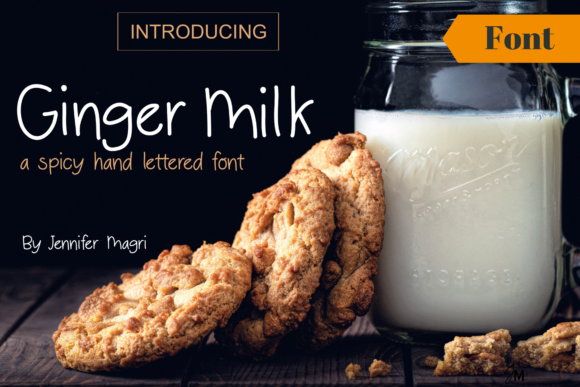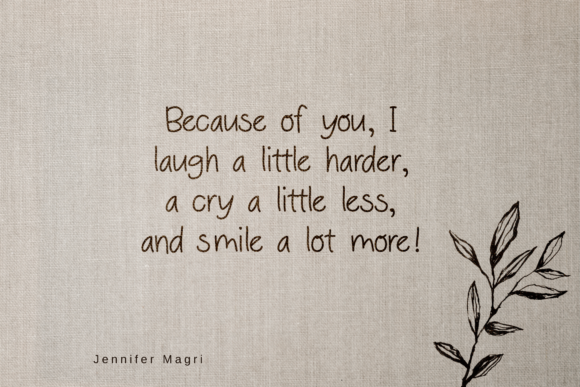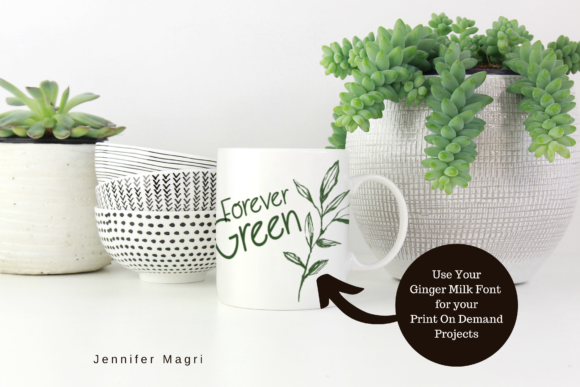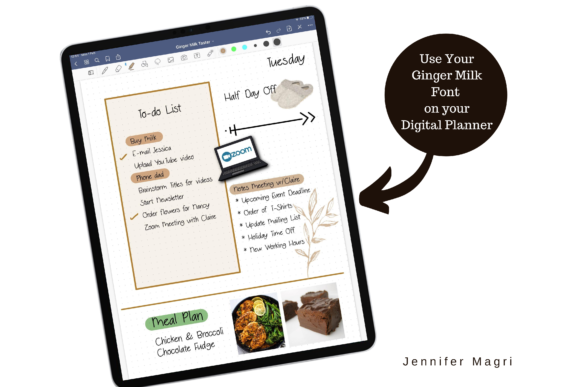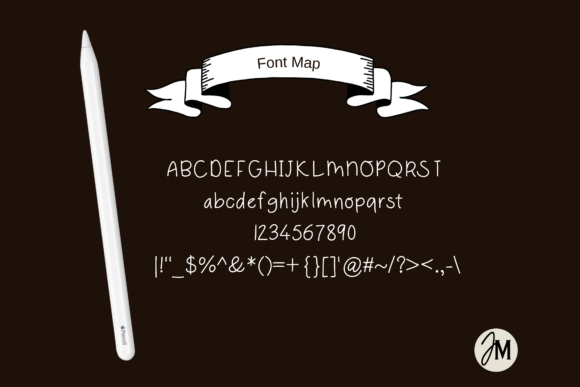
Ginger Milk Font
About Ginger Milk Font
Ginger Milk is a charming and approachable handwritten font that brings a touch of simplicity and naturalness to any design. Its friendly and fresh style makes it an excellent choice for a wide variety of projects, providing a versatile and welcoming vibe that suits different themes and purposes.
With its clean and legible appearance, Ginger Milk effortlessly conveys a sense of ease and approachability. It’s perfect for conveying a warm and personal message, making it ideal for greeting cards, invitations, social media posts, and other communication materials.
The font’s unpretentious nature gives it a broad appeal, making it suitable for both casual and professional contexts. Whether you’re designing for a laid-back event, a brand that values simplicity, or a product that aims to connect with its audience on a personal level, Ginger Milk can complement your vision perfectly.
Embrace Ginger Milk’s natural and handwritten look to create designs that feel authentic and down-to-earth. Its versatility allows you to use it in a wide pool of projects, from logos and branding to packaging and posters.
Unleash your creativity and explore the endless possibilities that Ginger Milk offers. Its simplicity and friendly demeanor will breathe life into your designs, inviting your audience to connect with your message and leaving a lasting impression of approachability and authenticity.